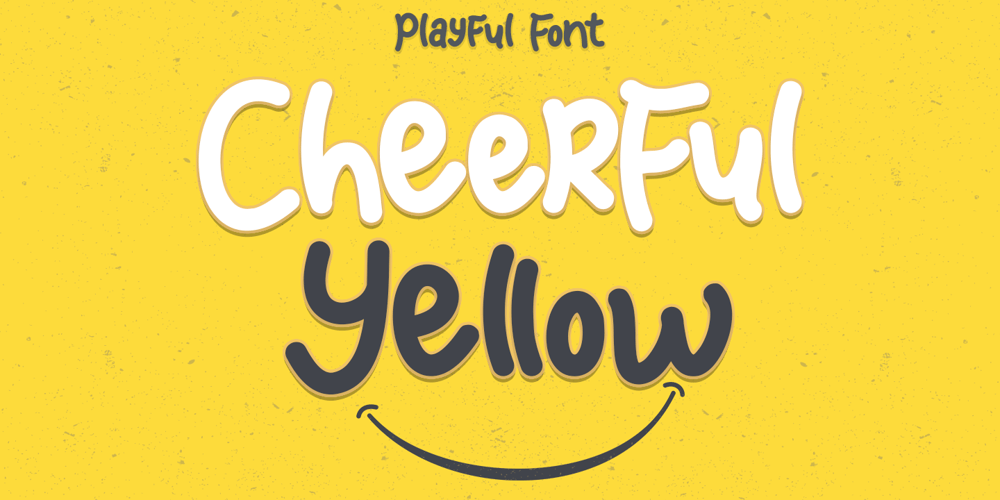
Cheerful Yellow Font Family was designed by Alif Ryan Zulfikar and published by Sakha Design. Cheerful Yellow contains 1 styles and family package options. Cheerful Yellow is a fun and cute display font. It has a playful style and great readability. It looks perfect on cards, branding, stationery, blog design, custom art, quotes, and so much more.